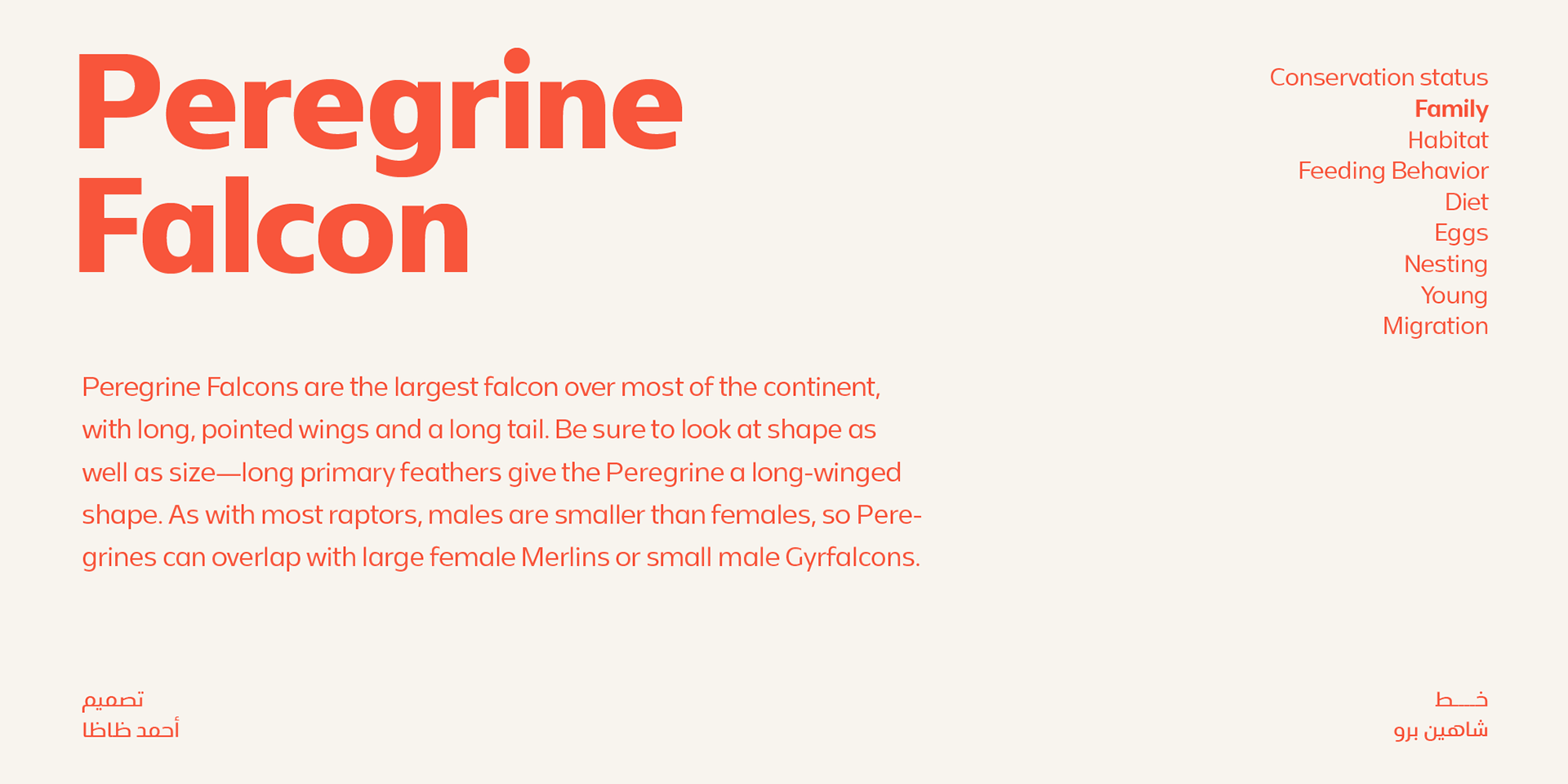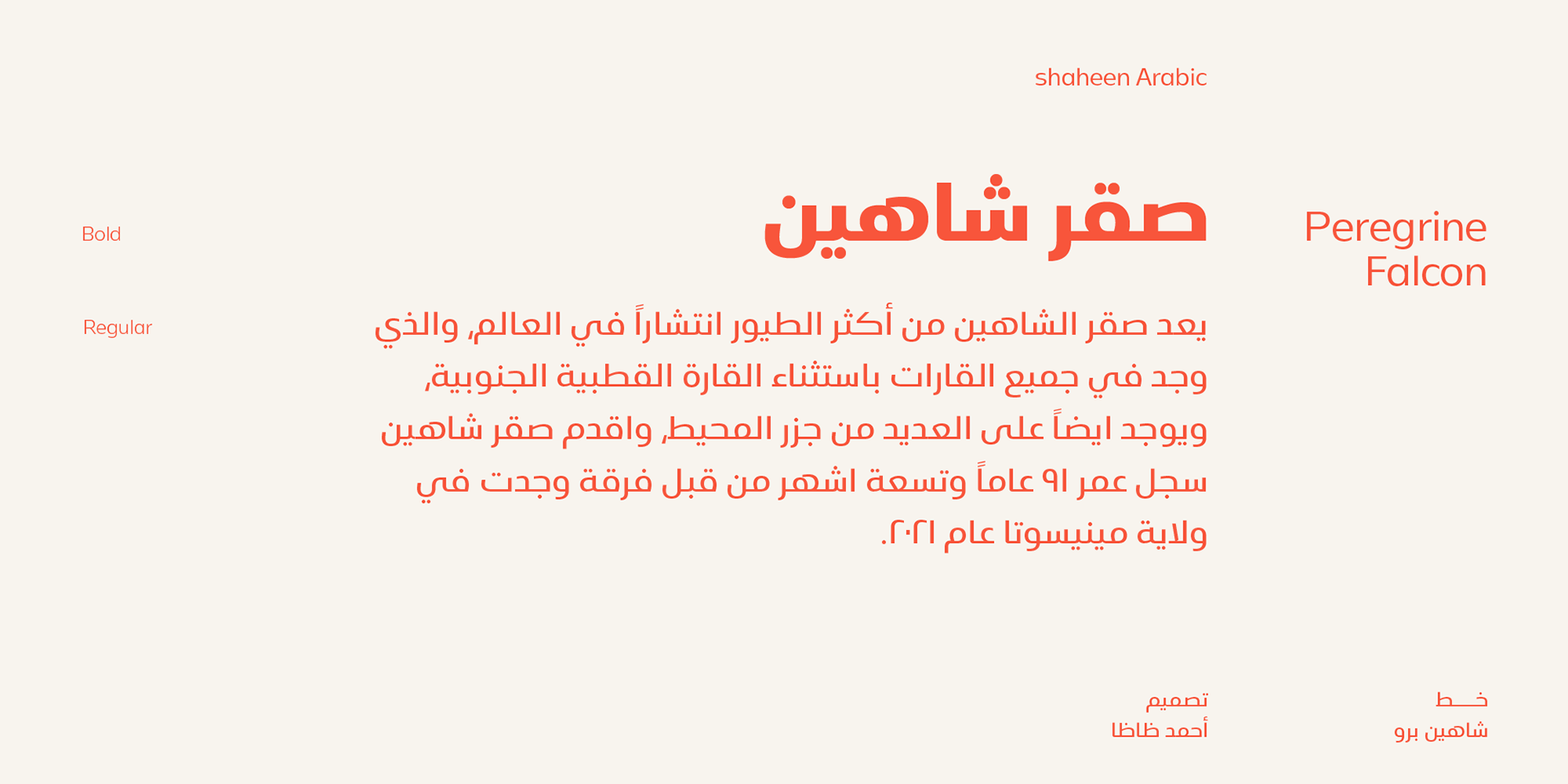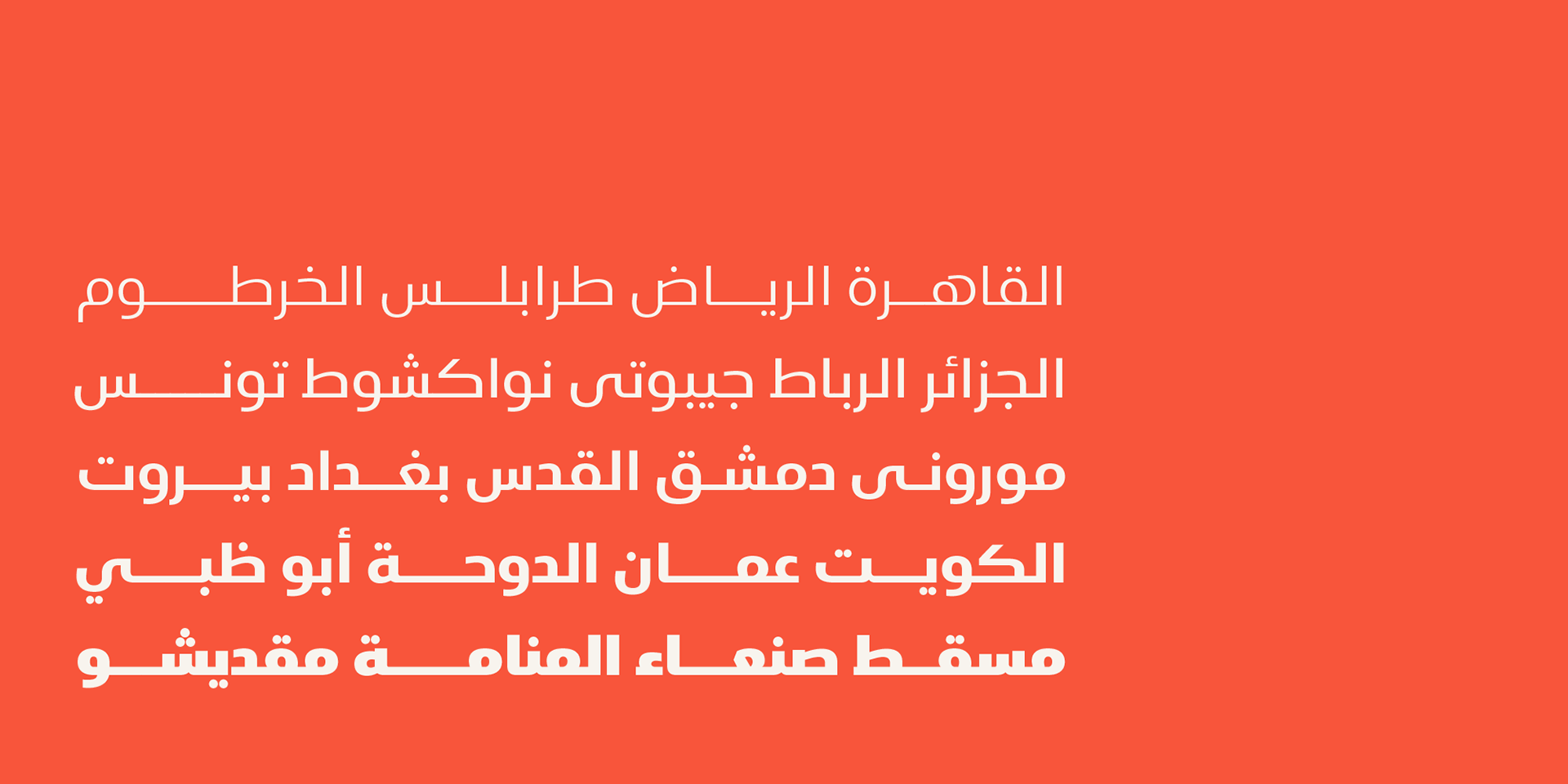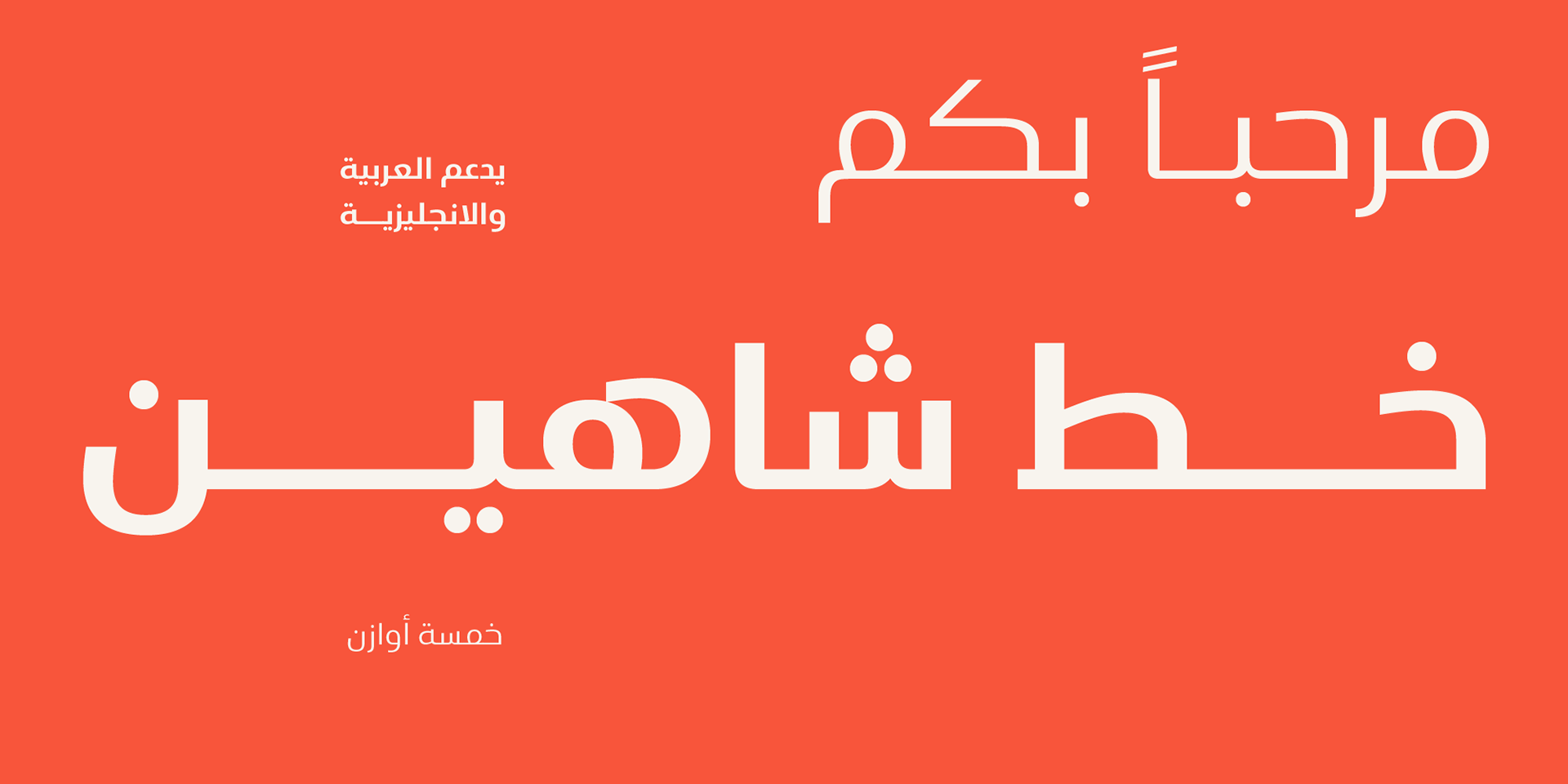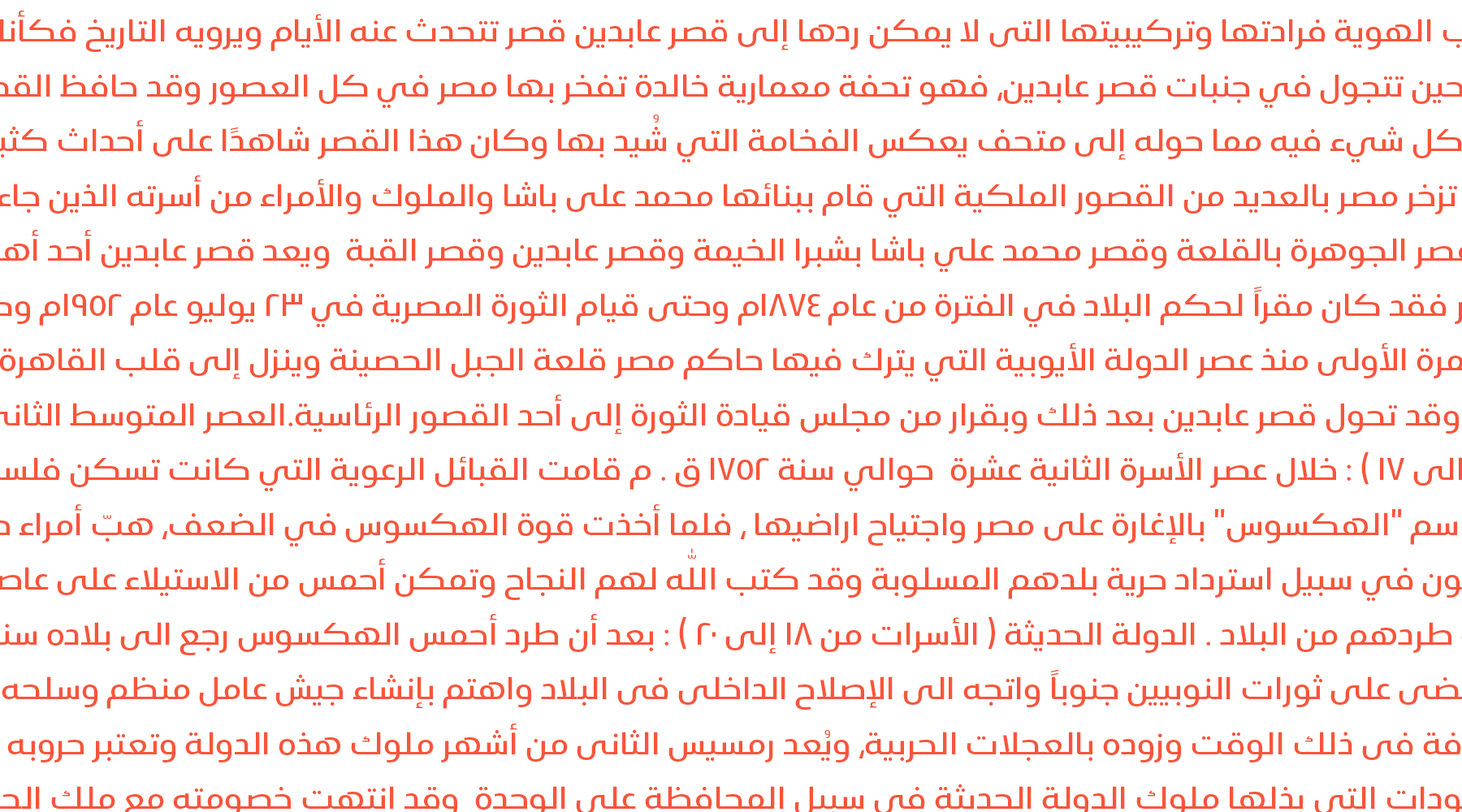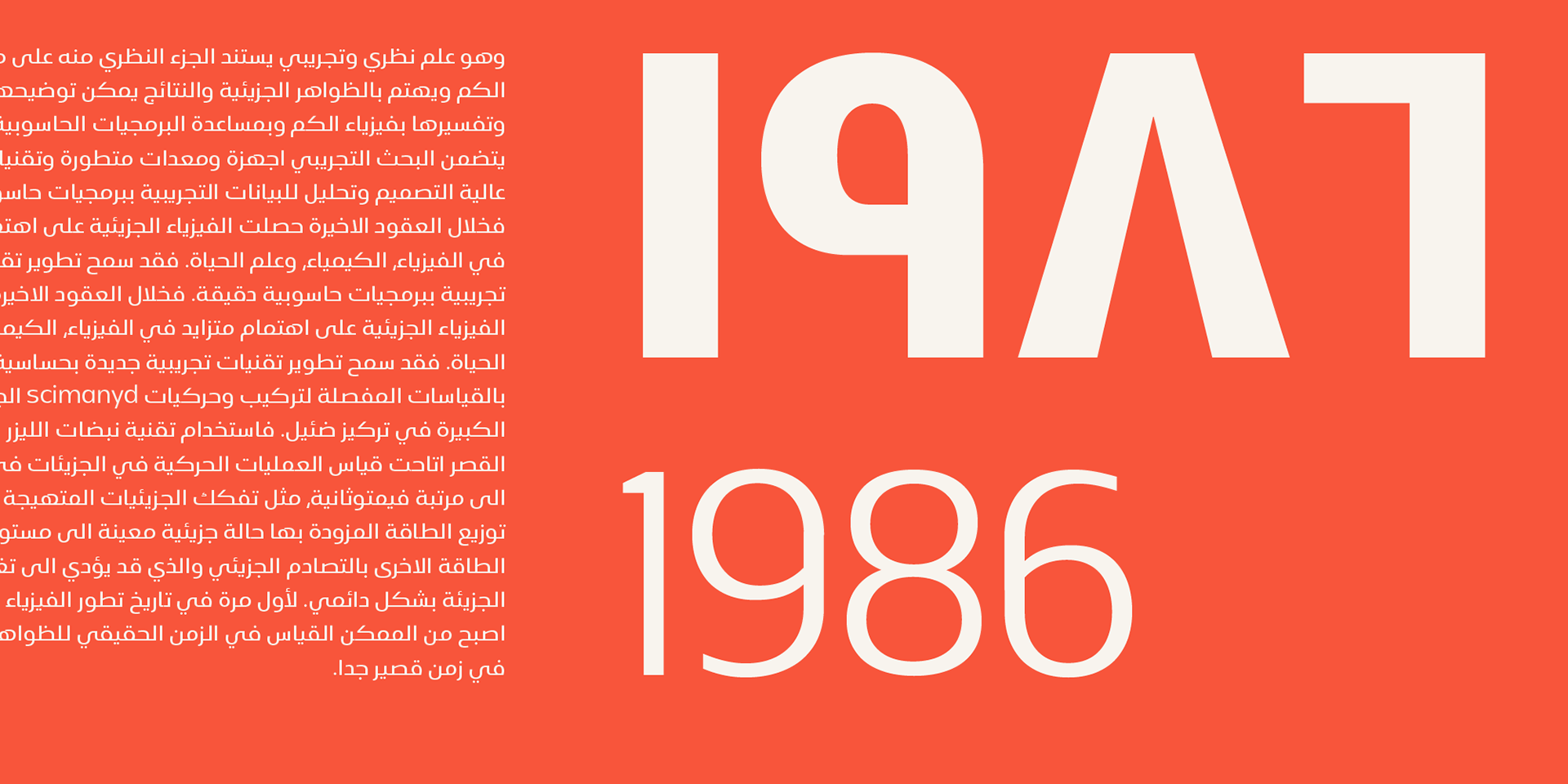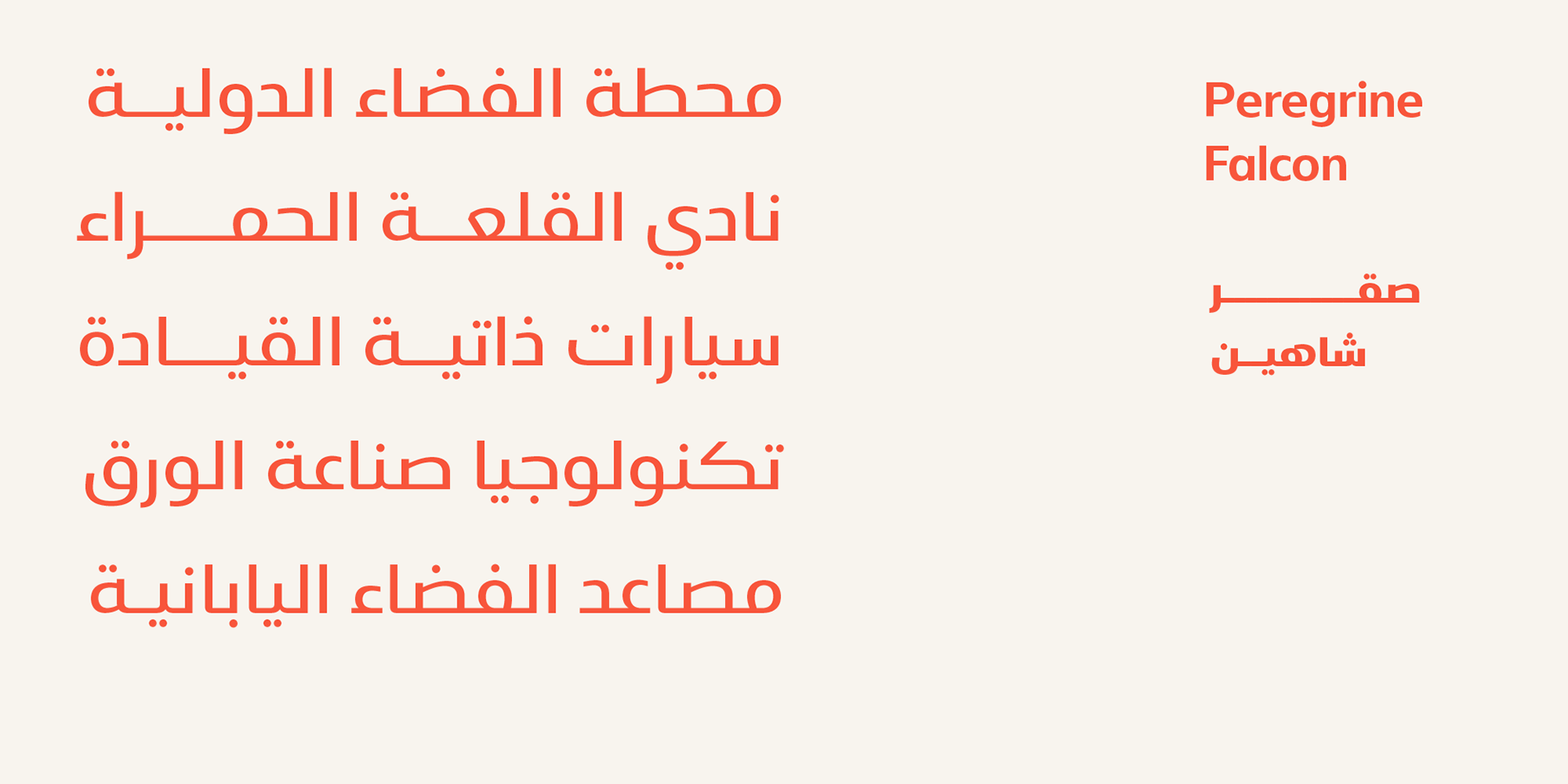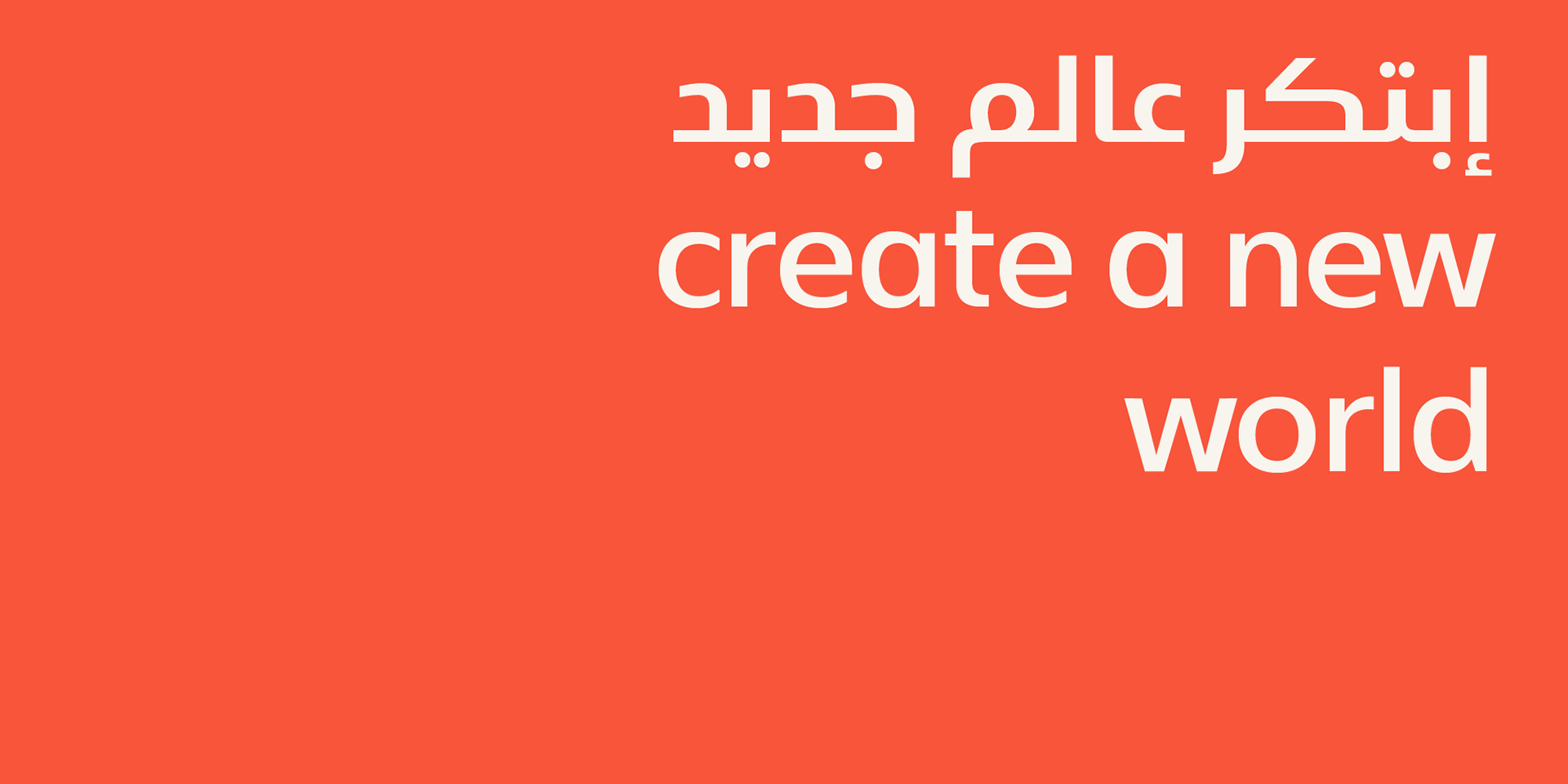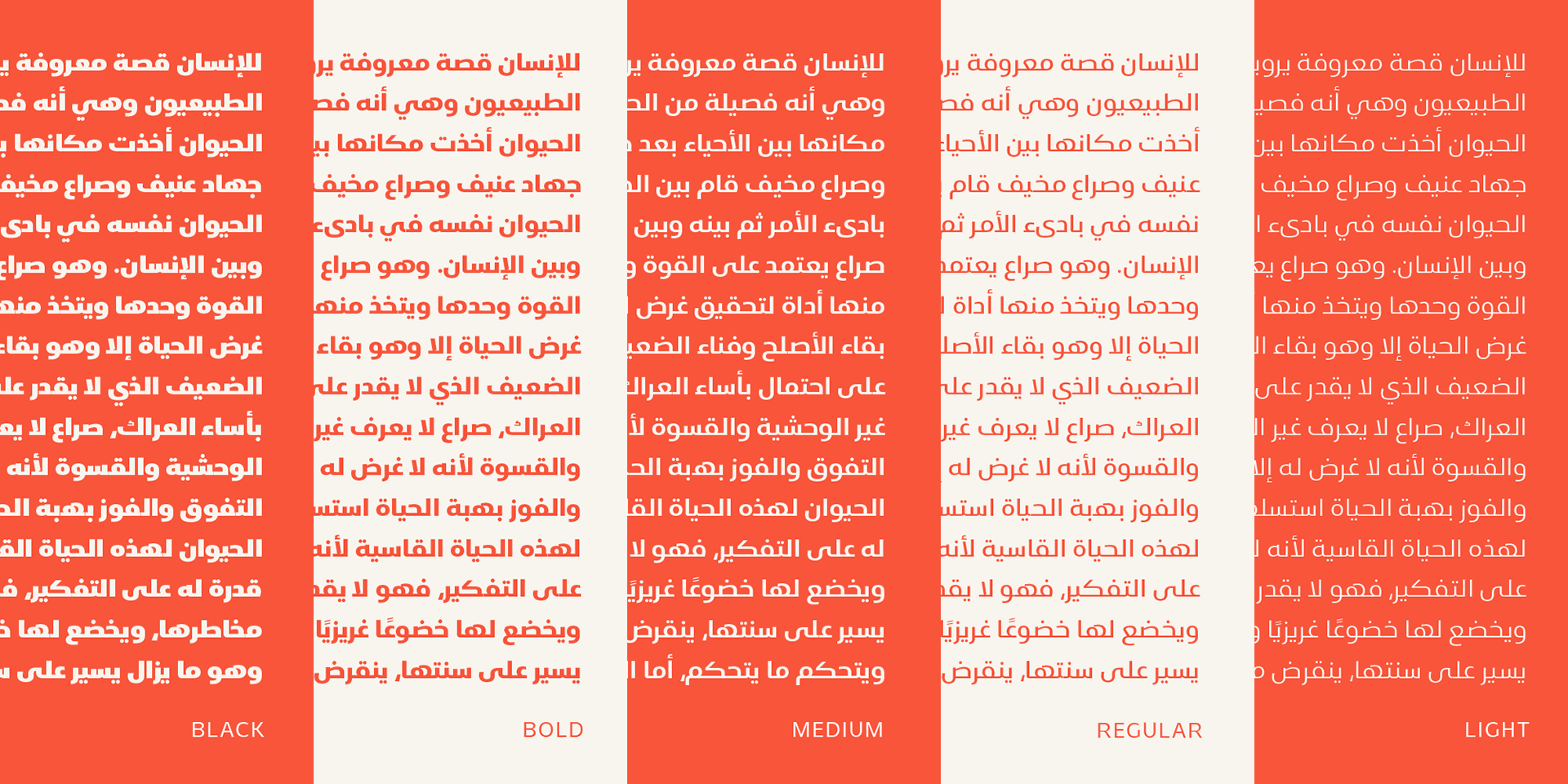
خط شاهين الطباعي – shaheen typeface
Shaheen is an Arabic and English typeface that embodies power and a tendency towards uniformity. While preserving the neat, minimalist look which is associated with it. The name, too, hints at the strong character of the typeface. Shaheen comes in 9 wight…